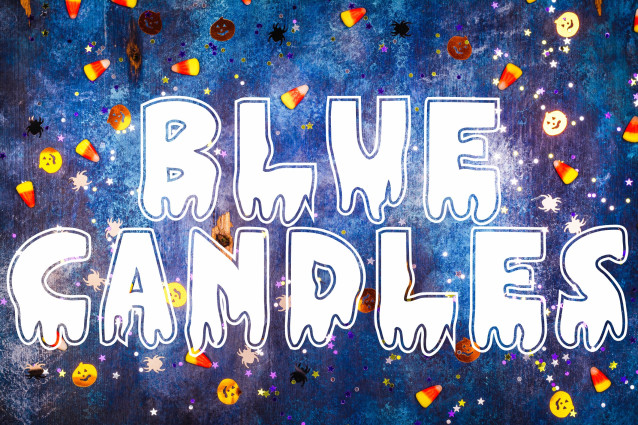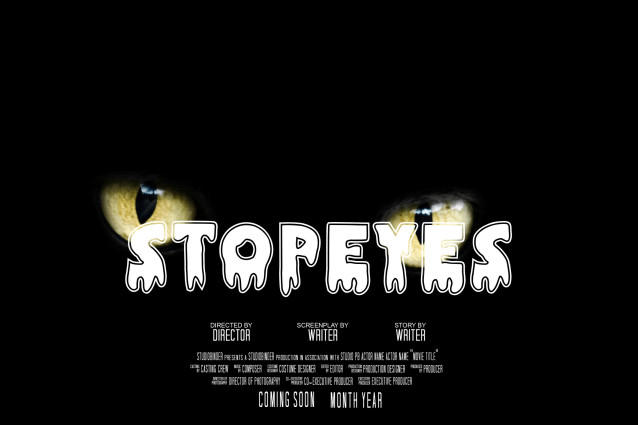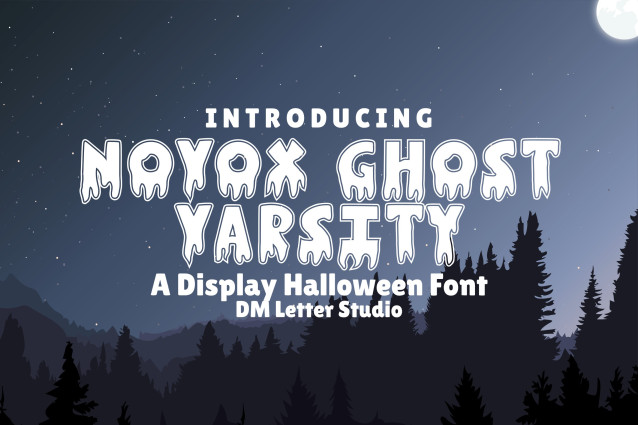
Novox Ghost Varsity Font
Novox Ghost Varsity combines the bone-chilling aura of the original Novox Ghost with the bold, collegiate flair of varsity lettering. This font fuses horror and high school sports aesthetics into a unique typeface that’s both fearsome and spirited. Perfect for Halloween-themed team jerseys, haunted school posters, eerie pep rallies, or any ghostly event with a competitive twist.